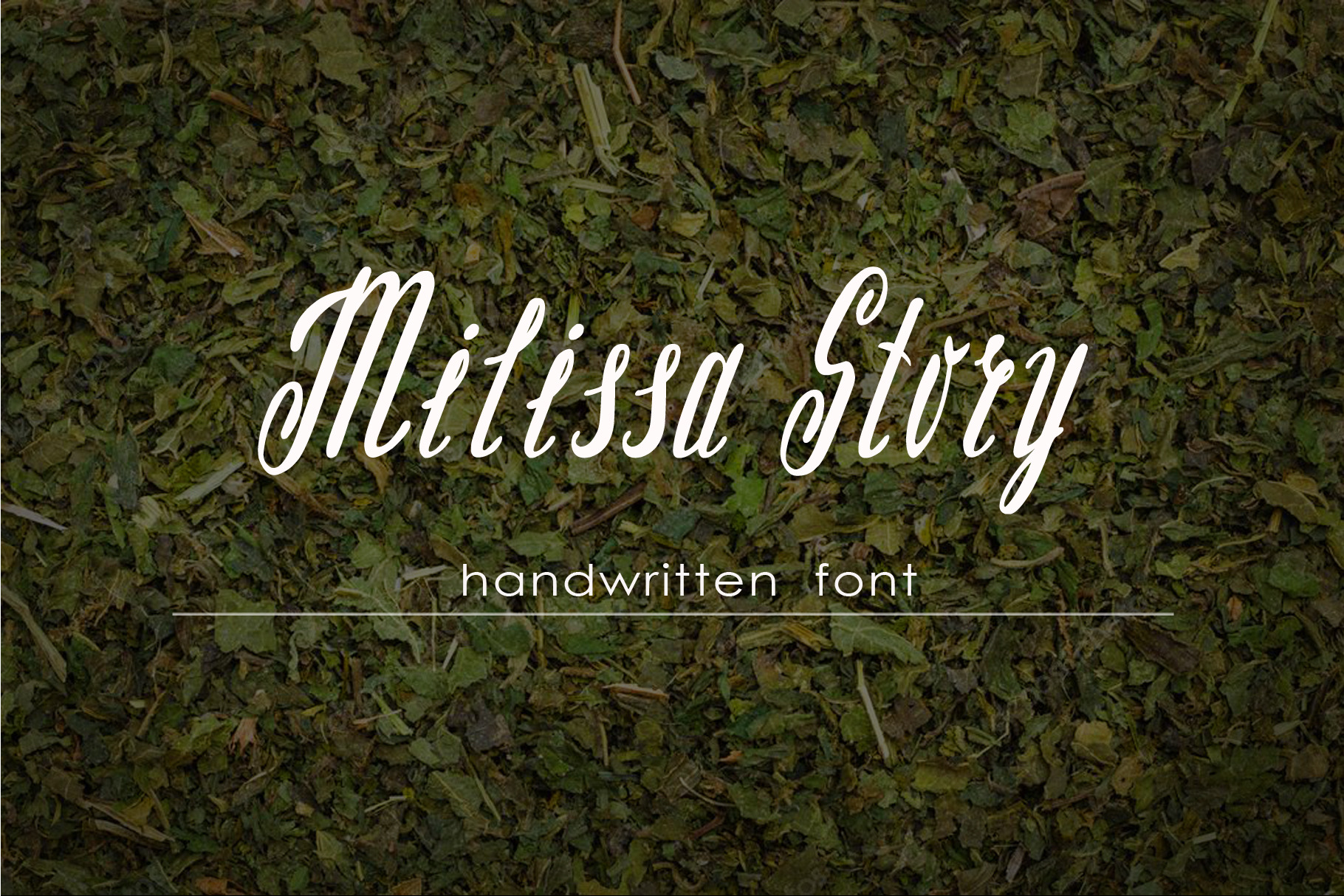
Milissa story script font
Milissa story script font is a playful lovely font with many ligatures, alternates, and doodles that giving you to make a lot of combination for your design.